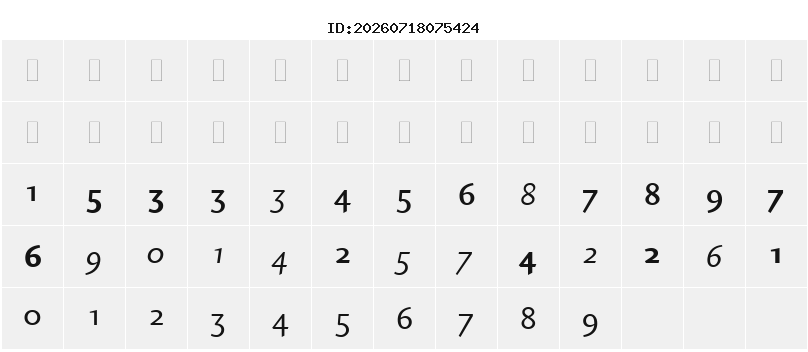
Charlotte Sans OS Figures LET Preview
• Font Name: Charlotte Sans OS Figures LET
• Designer: Michael Gills
• Manufacturer: International Typeface Corporation
About Charlotte Sans OS Figures LET.ttf
Charlotte Sans OS Figures LET.ttf is a modern, elegant sans-serif font designed for ultimate readability and visual harmony. Perfect for branding, headlines, web design, and print materials.